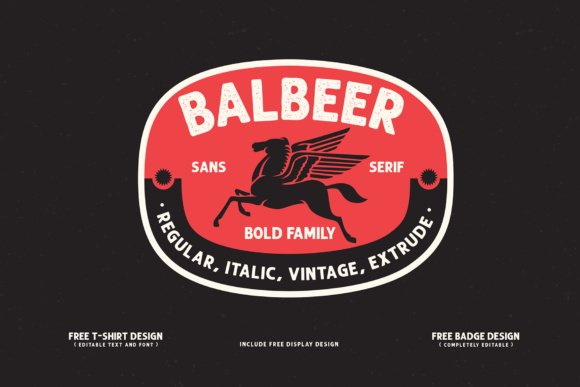
Unleash Your Creative Edge with the Balbeer Font
Have you ever been stuck on a design project, searching for that perfect font to give it that extra oomph? You know the feeling – like you’re staring at a blank canvas, waiting for inspiration to strike. For designers, finding the right font can be the game-changer that sets their work apart. And that’s exactly what the Balbeer Font is designed to do.
The Balbeer Font family is a stunning collection of 6 styles, each with a unique vintage grunge effect that’s sure to add a touch of raw, edgy charm to any design. Whether you’re working on a logo, a poster, or even a t-shirt design, the Balbeer Font has got you covered with its 4 display designs, 2 t-shirt designs, and 6 badge designs as a bonus!
Key Features of Balbeer Font
- Font Family: Balbeer Font is a typeface that offers a unique blend of traditional and modern elements.
- Size: The font family consists of multiple weights, ranging from Light to Bold, with 10 font sizes available.
- Unique Characteristics: The Balbeer Font features a distinctive, hand-drawn feel with intricate details and subtle texture, giving it a charming and elegant appearance.
Balbeer Font Review
I recently had the chance to work with the Balbeer font, and I must say it’s an interesting choice. Here’s my honest review.
- The Balbeer font has a unique, elegant feel to it. It’s perfect for those looking for a sophisticated and luxurious look.
- The font is highly customizable, making it a great choice for designers who want to create a personalized aesthetic.
- It’s also relatively easy to read, even at smaller font sizes.
- The Balbeer font can be quite heavy, which may make it difficult to use in large blocks of text.
- It may not be the best choice for websites or digital interfaces, as it can be overwhelming in a digital context.
- The font may not be suitable for use in body text, as it’s more suited for headlines and titles.
Overall, the Balbeer font is a great choice for designers who want to add a touch of elegance and sophistication to their work. However, it may not be the best choice for every project. With careful consideration and use, it can be a powerful tool in your design arsenal.
Getting the Most Out of Balbeer Font
For the best results, use Balbeer Font in bold or italic styles to add emphasis to your text. You can also pair it with other fonts to create a unique and visually appealing design.
Balbeer Font is ideal for use in creative projects, such as logos, posters, and social media graphics. It’s also a great choice for use in presentations and reports where you want to add a touch of elegance and sophistication.